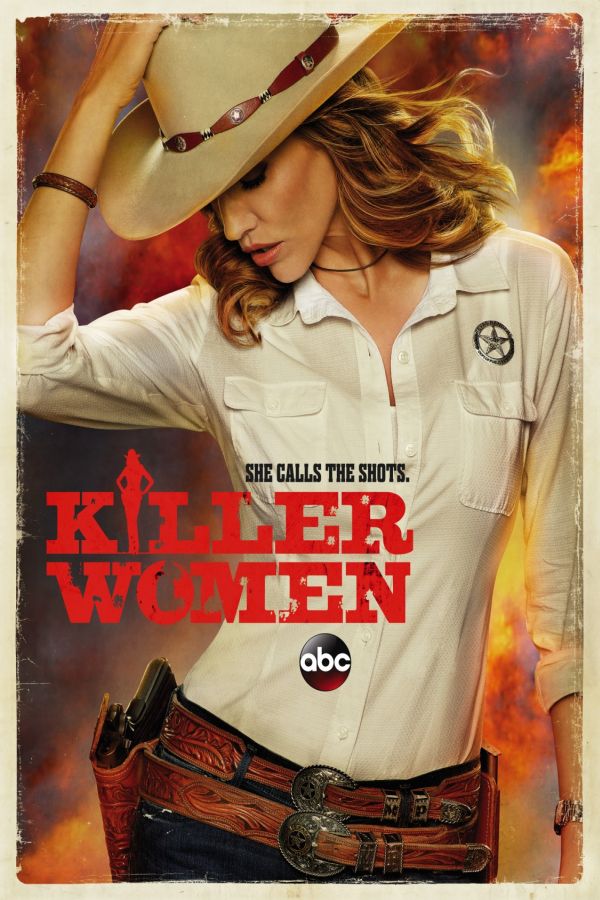
Killer Women Font
CrimeKiller Women is a crime series from Argentina that follows the story of a female police officer as she navigates the male-dominated world of law enforcement while solving a series of brutal murders. The show originally aired on the Argentine channel America TV and later on Netflix.
The TV title in the poster features a slab serif font similar to Egziano Black by Vincent Figgins. You can view more information and buy the font here.